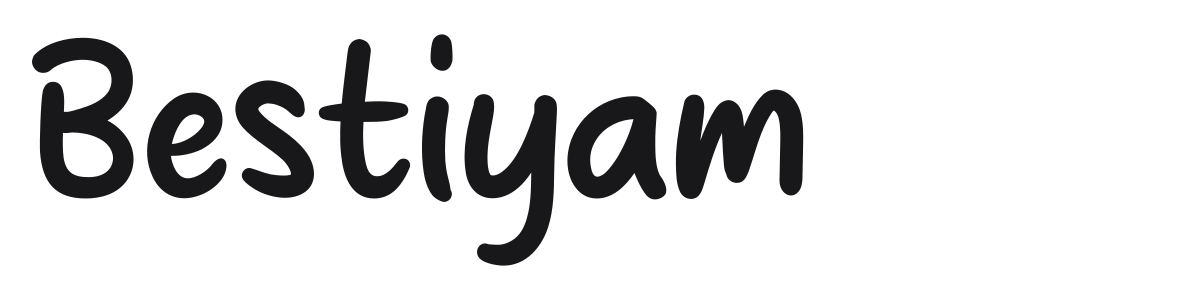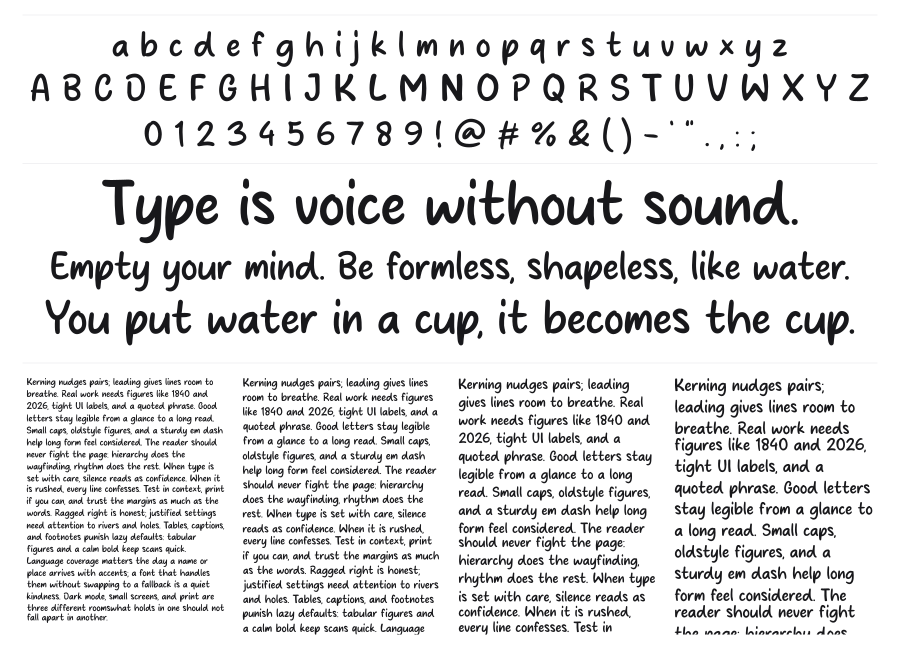
Bestiyam
Bestiyam is a bold casual script with rounded, hand-lettered forms and a naturally friendly rhythm. The near-monoweight strokes and soft terminals give it an informal warmth without feeling sloppy. It works well at large sizes for branding, packaging, and anything that needs approachable personality.